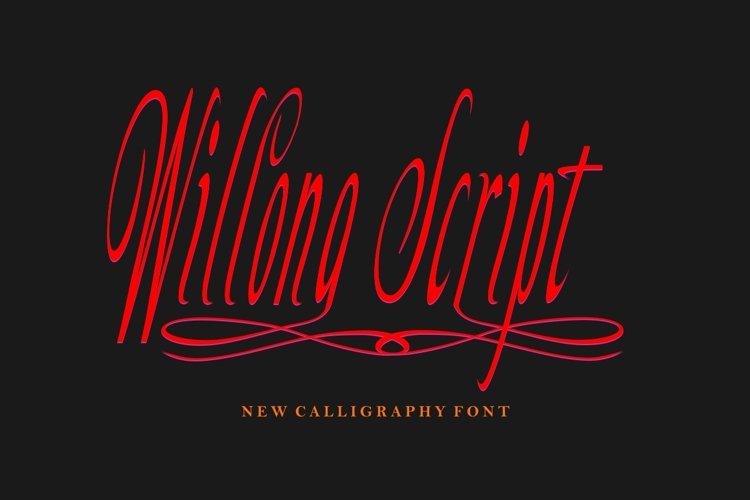
Willona Script is a unique blend of classic and modern fonts. imperfect tidal forces, such as dance letters, are smooth, clean and simple. Introducing my new font is perfect for use such as logos, wedding invitations, posts, t-shirts, letterheads, signage, labels, news, poster badges etc.
OpenType features with alternative styles, binders and multi-language support.